Variable fonts are way cooler than static fonts! They offer greater precision in print work and easy options for adaptable and animatable typography on the web. From control over font weight to being able to grow serifs out of a sans serif font, type designers are just getting started with this font format.
If you have installed fonts on your computer, you probably know that each font style is a separate file. You may have both CoolFontRegular.otf and CoolFontBold.otf that you need to install—we call these the static font files and they contain all the information for that specific set of shapes with no way to change them other than switching to using a different font file. For example, changing from using Regular to Bold in your font menu.
When you install a variable font it will be called CoolFontVariable.ttf (or something similar), and it will contain all the information to display Cool Font Regular, Cool Font Bold, and all the possible letter shapes in between. The information is recorded as numbers along an axis. So Cool Font Regular may correspond to 400 and Cool Font Bold may correspond to 600 along the axis. In design programs, you can either directly input the numbers, or use a slider to choose what version of the shapes you are displaying. On the web, you can reference the number on the axis that you want to display within the CSS.
Variable fonts are a font format that contains all the styles in one file. These different styles are plotted along an axis of numbers and can be accessed through sliders in most software. The user can fine tune the shapes of the letterforms using axes like weight, width, slant, optical size or even design details like size of the serifs or height of the crossbars.
This new format for the font file was announced in 2016 and has been supported in most major operating systems, browsers and programs since around 2020. As of the writing of this article in 2025, they work almost everywhere, with only a few outliers. This means that they are pretty safe to use in daily work but expect that there may be a few hiccups when working with outdated software, or software that doesn’t get updated frequently. You can check software support here.
Typography in print design is often about having precision control over many aspects of the letters and spacing. Variable fonts give even more precision than before.
Type Designers have long been in charge of choosing which weights to include with their type family but it doesn’t always fit the project perfectly. A regular weight for text may feel slightly too dark or too light for a particular project. With a Variable font, the typeface user has more control over exactly how dark or light those letterforms are. This also helps to solve the issue of light text on a dark background appearing heavier than dark text on a light background. With a variable font, we can lighten the weight of the light-coloured letterforms slightly so they don’t seem overly bold—this can be useful in branding work where you don’t want the light coloured logo to appear heavier than the dark coloured one. This happens with dark mode on devices as well!
Perhaps we are working with a set of icons or line weights and we want to match the letter stems to them. We can make these very slight adjustments with variable fonts. This also comes in handy when we are working with lines of text that may be different sizes but we are looking for the same stem widths.
In addition to adjusting the weight of typefaces, some variable fonts will come with other axes, and one of the more common ones is the width axis. This can help line up multiple words across multiple lines or even help reduce rivers when justifying text by slightly increasing or decreasing the letter-widths in the line to compensate for awkward word-spacing.
Some variable fonts play around with unique axes. There are some really creative axes ideas like being able to control the crossbar height, or how large the serifs are. These fonts can melt like ice caps, or rotate, or go from straight sided to wiggly sided—there are many interesting options (check out the Unusual Variation filter on v-fonts.com).
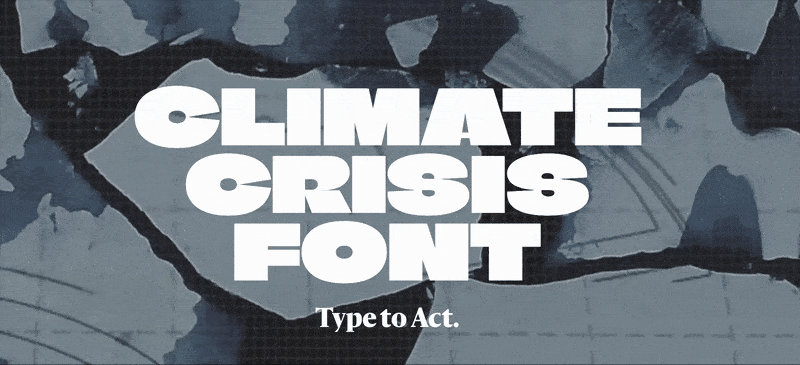
Digital designs are a great place to start using Variable fonts. From a technical perspective, every time you load a font file on a website, requests get sent between servers and data gets sent and downloaded. Too many of these requests and too much data slows down the load time of the website. When we started using webfonts, best practice was to use only a few font styles (like 2-4) and shrink the file size as much as possible. One variable font can be the same size as 2-4 static fonts but it only makes one request so in most cases it offers an improvement to site performance.
And along with the performance benefits, you gain access to many more styles than just 2-4. The design of the website can incorporate more styles and fine-tuning of the typography. Also, just like accessing the axes in design software, you can bet we can access those axes with code as well. Variable fonts can allow the typography to become adaptable and animated. We can animate smoothly between styles—think of letters that get wider when you mouseover, or letters that get thinner as you scroll past them, or letters that grow serifs over time. We can also adjust the style on different screen sizes for a better reading experience like making the letters more condensed on a phone screen where there is less horizontal space.